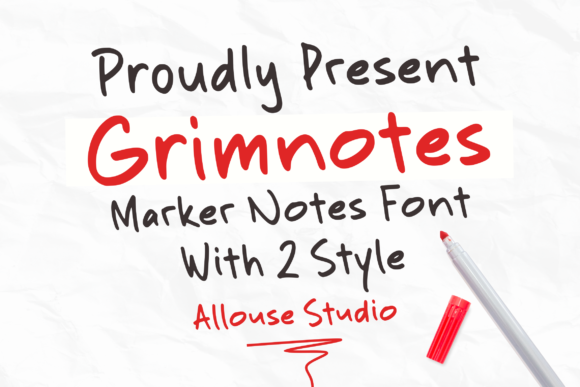
**Introducing Grimnotes Font: The Ultimate Text Transformer**
Unleash the power of words with Grimnotes Font, a captivating script font designed to make your creations stand out. Crafted with the utmost care and precision, Grimnotes will add a touch of whimsy and charm to any project.
Whether you're crafting eye-catching headlines or enchanting children's books, Grimnotes is the perfect choice for those seeking a font that exudes both style and legibility. Its elegant curves and playful spirit will breathe life into your designs, leaving a lasting impression on your audience.
**Why Choose Grimnotes Font?**
- **Effortless readability:** Grimnotes is meticulously designed to ensure effortless reading, even at smaller sizes. Your words will shine through, captivating your readers with their clarity and elegance.
- **Versatile charm:** Grimnotes is a true chameleon, effortlessly adapting to a wide range of design styles. From whimsical illustrations to sophisticated branding, it seamlessly blends with your vision.
- **Artistic allure:** With its enchanting script style, Grimnotes adds a touch of artistry to your creations. Its playful curves and elegant strokes will transform your words into captivating visual masterpieces.
- **Unleash your imagination:** Grimnotes is perfect for those who dare to dream big. Its versatility empowers you to explore endless creative possibilities, taking your designs to new heights.